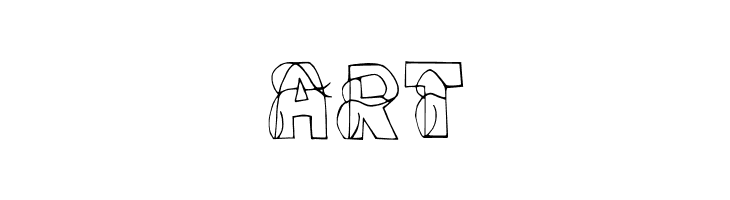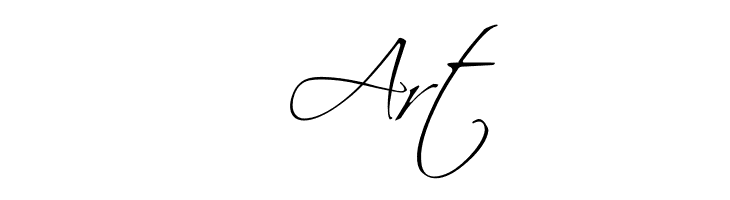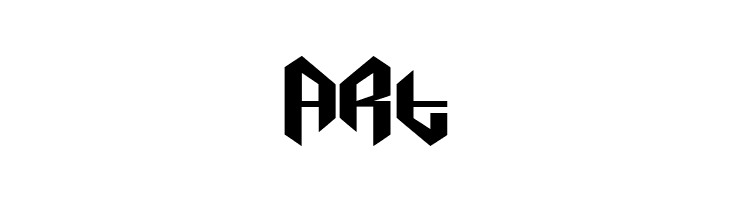
( Abelardo Gonzalez - abbiecod.es )
A bold, italic font designed for readability and accessibility, ideal for dyslexic readers.
( Abelardo Gonzalez - abbiecod.es )
A bold, accessible font designed to enhance readability with unique, distinguishable letterforms.
( Abelardo Gonzalez - abbiecod.es )
A readability-focused font with distinct shapes and heavier bottoms, aiding dyslexic readers.
( Abelardo Gonzalez - abbiecod.es )
A dyslexia-friendly font with distinct, weighted letterforms for improved readability.
( Abelardo Gonzalez - abbiecod.es )
An accessible, italic font with distinct, weighted letterforms for enhanced readability.
( Aly K. Salazar )
An ornate and decorative script font with elegant swirls and flourishes.
( Arianna Fotin )
A bold, decorative font with geometric and abstract patterns within each character.
( CheapProFonts - Roger S. Nelsson - www.cheapprofonts.com )
An elegant, cursive font with flowing, intricate designs and dramatic flourishes.
( Cre8or Artwork - Lukas Kohler )
( Daddi Daryawan )
A bold, flowing script font with elegant, interconnected characters.